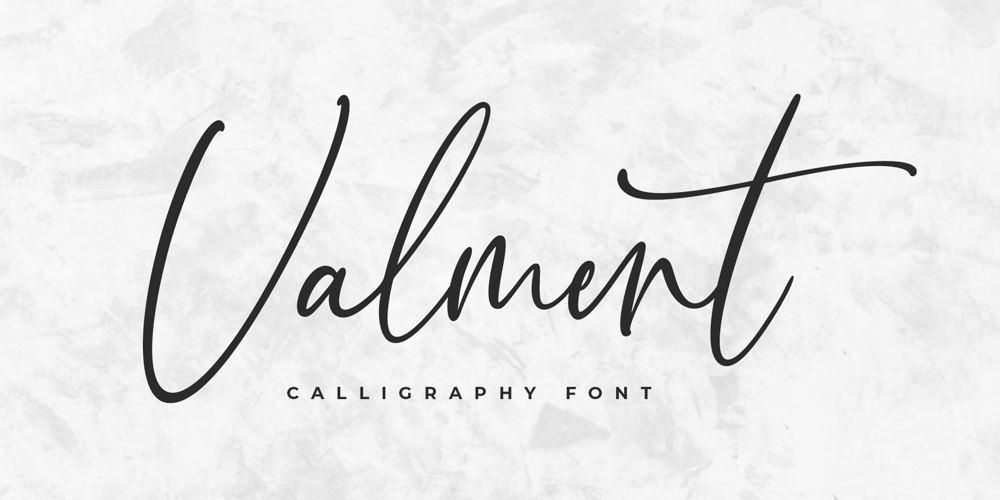
Valment Font Family was designed by Revo Farsiky and published by Pen Culture. Valment contains 1 styles and family package options. Introducing my newest font called valment. this is modern calligraphy font that perfect for any use,.this font come with 72 beautiful ligature and very perfect for your design project and many other. let’s make world more special with valment.what inside: All caps Number Punctuation 71 Beautiful ligature Pua encode I really hope you enjoy it – please do let me know what you think, comments & likes are always hugely welcomed and appreciated. More importantly, please don’t hesitate to drop me a message if you have any issues or queries.Guides to access all alternates glyphs : http://adobe.ly/1m1fn4YPlease fell free to contact me if you have any questionThank you